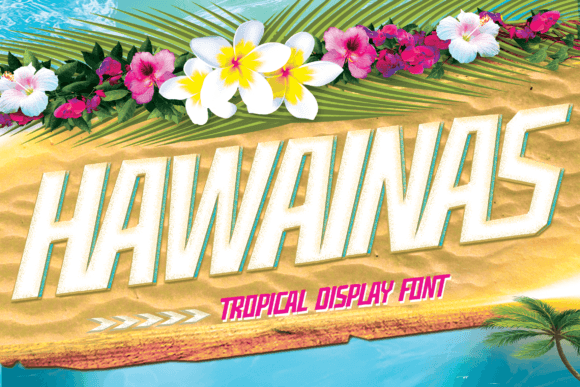
Dive into the world of tropical typography with Hawainas Font, a bold display font that captures the vibrant essence of Hawaiian beaches. This captivating font will transform your projects into a visual paradise.
Let Hawainas Font transport you to a world of sun-kissed shores and crystal-clear waters. Its playful curves and bold strokes evoke the carefree spirit of Hawaii, inviting you to embrace your inner creativity and embark on a typographic adventure.
With Hawainas Font, your words will dance off the page, captivating your audience with its unique charm. Its versatility knows no bounds, making it the perfect choice for a wide range of projects. From tropical books and online games to teen event posters and school supplies, Hawainas Font adds a touch of paradise to any design.
Picture your creations adorned with Hawainas Font, their titles and headlines demanding attention with its bold presence. Imagine your posters and movie titles radiating with a tropical flair, drawing viewers into your captivating stories. And envision your social media pages and online presence exuding a vibrant energy that reflects your unique style.
Hawainas Font is more than just a font; it's an invitation to embark on a sensory journey, to escape the ordinary and dive into a world of tropical typography. Its every curve and stroke is meticulously crafted to evoke the emotions of sun-soaked days and balmy nights, transporting your audience to a place of relaxation and tranquility.